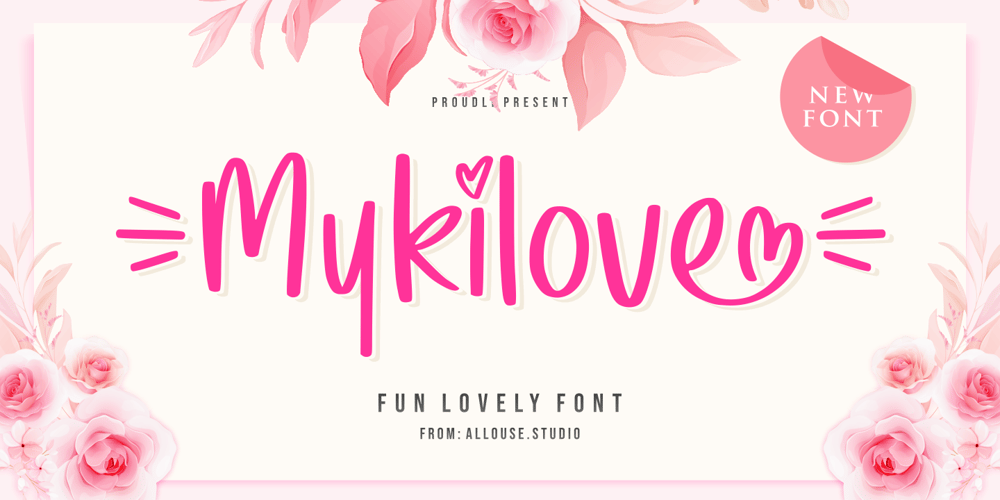
Mykilove Font Family was designed by Fachrizal Yusuf and published by Allouse Studio. Mykilove contains 1 styles and family package options. Mykilove a Fun Lovely Font.Mykilove is perfect for any tittles, logo, product packaging, branding project, megazine, social media, wedding, or just used to express words above the background.Mykilove come with lovely stylistic alternates, ending swash, and Multi-Lingual Support.We highly recommend using a program that supports OpenType features and Glyphs panels like many of Adobe apps and Corel Draw, so you can see and access all Glyph variations.Enjoy the font, feel free to comment or feedback, send me PM or email. Thank You!